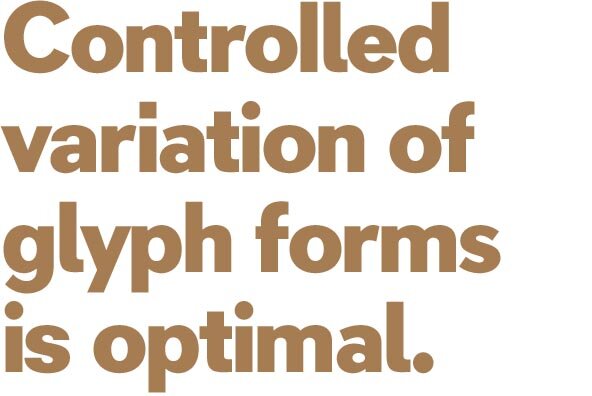
Neology Font
Variety is favored in many areas, particularly for activities which extend over time. Humanity balks at the prospect of the straight road, the assembly line, the prison cell - we are designed to respond to stimuli which vary; inertia generates invisibility.
The idea that a character should always be represented by a single glyph (except for the occasional ligature) is an economy of the foundry type era, with no basis in science. It also expresses the reductive ideology of modernism, and that too is a thing of the past.
New technology makes possible new practicalities: the Neology fonts automatically mix Deco (geometric) and Grotesque letter forms in a pseudo-random manner.